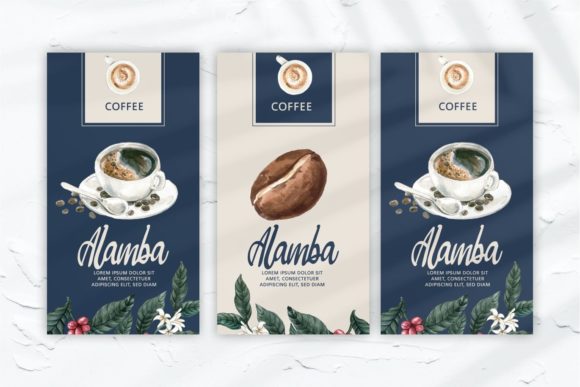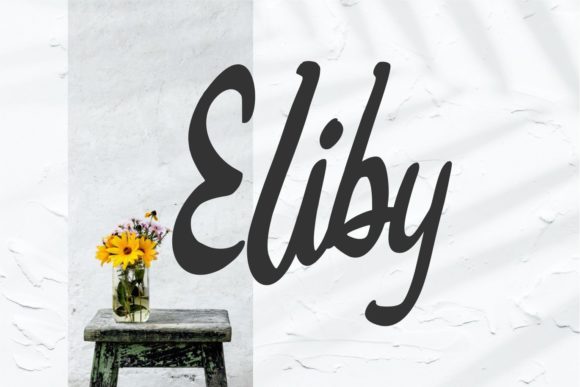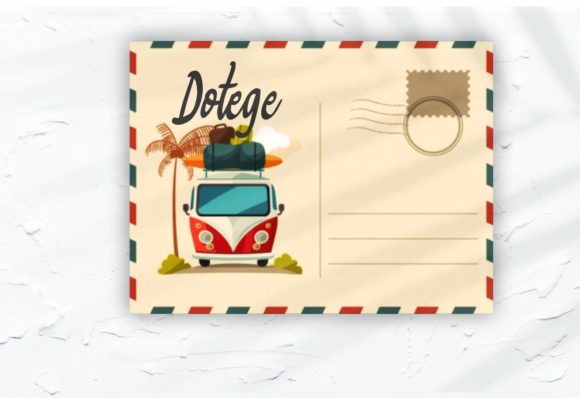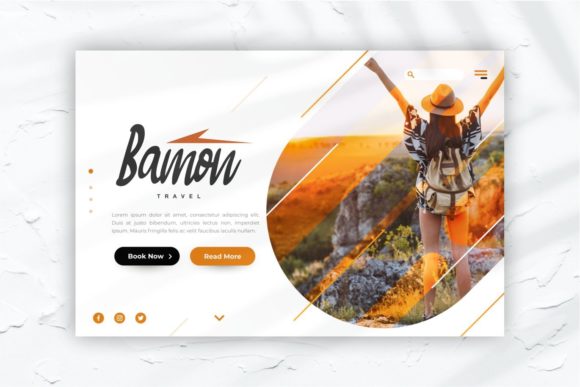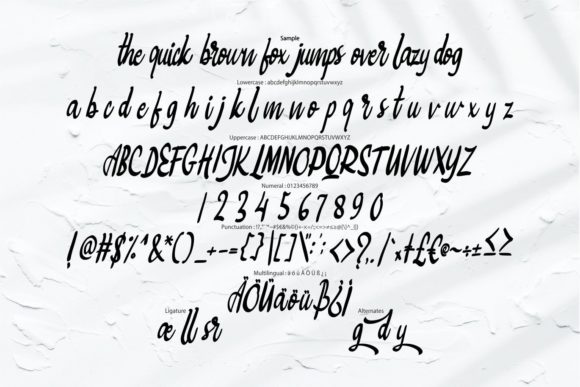
Bigtedy Script Font: Elevate Your Designs with a Timeless Handwritten Touch
Are you on the hunt for a font that can add a personal touch to your designs? Look no further than the Bigtedy Script Font. This lovely and timeless handwritten font is perfect for creating eye-catching logos, branding, and quotes that will leave a lasting impression on your audience. In this article, we’ll dive into the world of Bigtedy Script and explore its unique features, benefits, and uses.
A Unique and Beautiful Touch
One of the standout features of Bigtedy Script Font is its unique and beautiful touch. Every letter has been carefully crafted to bring a sense of elegance and sophistication to your designs. The font’s handwritten style gives it a warm and inviting feel, making it perfect for designs that require a personal touch. Whether you’re creating a logo, branding materials, or social media graphics, Bigtedy Script is sure to make your design come alive.
Bigtedy Script Font is a versatile font that is perfect for designers and crafters alike. Its timeless style makes it suitable for a wide range of design projects, from modern and trendy to vintage and rustic. Whether you’re creating digital or print materials, this font is sure to impress. Designers can use Bigtedy Script to create stunning logos, brochures, and business cards, while crafters can use it to create beautiful handmade cards, scrapbook pages, and other paper crafts.
Benefits of Using Bigtedy Script Font
So, what are the benefits of using Bigtedy Script Font in your designs? Here are just a few:
- Unique and eye-catching: Bigtedy Script Font is a one-of-a-kind font that is sure to grab attention.
- Timeless style: The font’s classic handwritten style ensures that your designs will never go out of style.
- Versatile: Bigtedy Script can be used for a wide range of design projects, from logos and branding to social media graphics and paper crafts.
- Elegant and sophisticated: The font’s elegant and sophisticated style makes it perfect for designs that require a touch of luxury.
How to Use Bigtedy Script Font
Using Bigtedy Script Font in your designs is easy. Here are a few tips to get you started:
- Pair it with a sans-serif font: Pairing Bigtedy Script with a sans-serif font can create a beautiful contrast and add visual interest to your designs.
- Use it for headlines: Bigtedy Script Font is perfect for headlines and titles, where its elegant and sophisticated style can shine.
- Experiment with colors: Don’t be afraid to experiment with different colors and textures to add depth and interest to your designs.
In conclusion, Bigtedy Script Font is a lovely and timeless handwritten font that is perfect for designers and crafters alike. Its unique and beautiful touch, elegant and sophisticated style, and versatility make it a must-have font for any design project. Whether you’re creating logos, branding materials, or social media graphics, Bigtedy Script is sure to elevate your designs and leave a lasting impression on your audience.